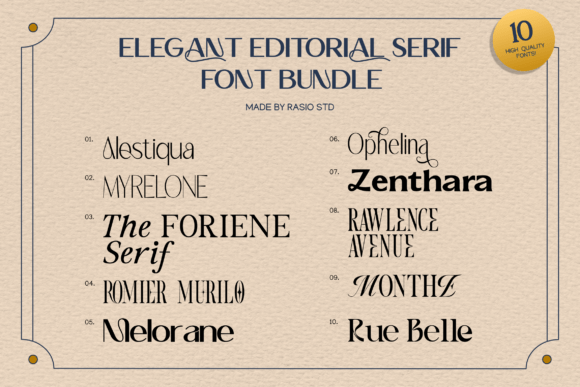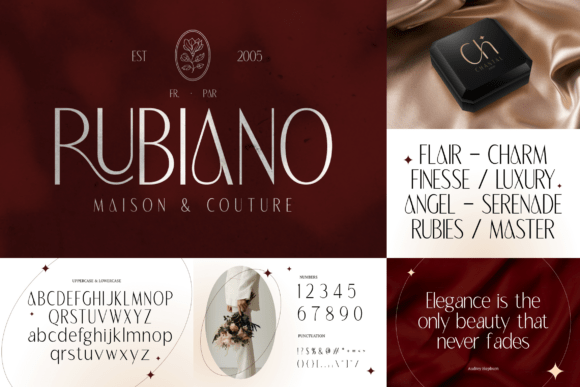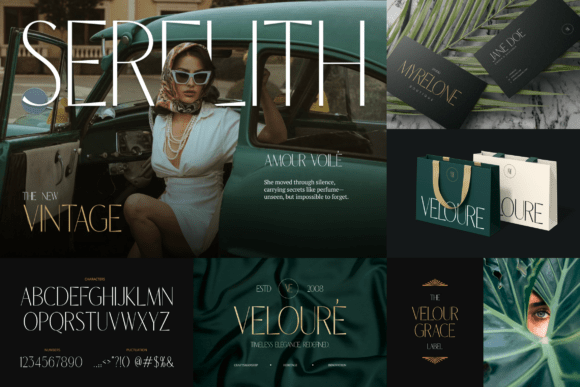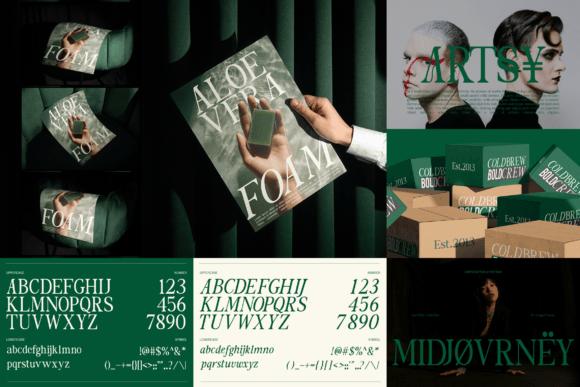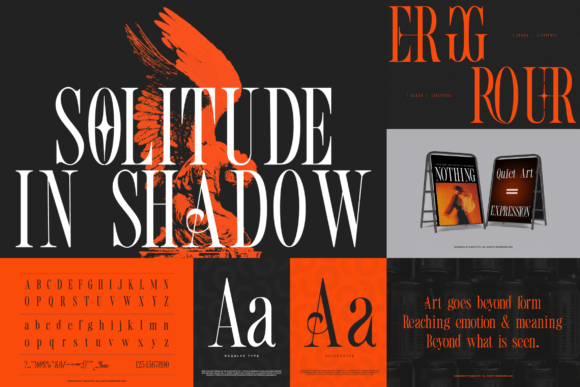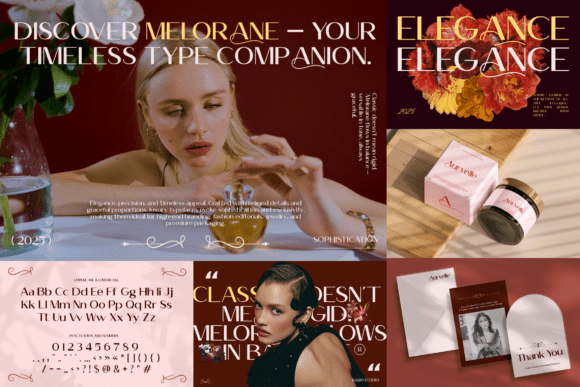
Elegant Editorial Font: Elevate Your Design with Timeless Sophistication
In the world of typography, an elegant editorial font can make all the difference in creating a lasting impression. The Elegant Editorial Serif Font Bundle is a thoughtfully curated collection of typefaces designed to bring refined, modern, and timeless design to your projects. This bundle seamlessly combines classic serif sophistication with contemporary editorial aesthetics, delivering expressive yet balanced letterforms with a polished character.
What Makes the Elegant Editorial Serif Font Bundle Stand Out?
The Elegant Editorial Serif Font Bundle is crafted to perform beautifully in display use, featuring elegant proportions, subtle contrast, and distinctive details. Each typeface in the bundle is designed to provide a confident and graceful presence without feeling overly decorative. This makes them ideal for a wide range of applications, including editorial layouts, fashion branding, luxury visuals, and premium creative projects.
Key Features of the Elegant Editorial Serif Font Bundle
- Elegant Proportions: The fonts in this bundle are designed with elegant proportions that evoke a sense of sophistication and refinement.
- Subtle Contrast: The subtle contrast in the letterforms adds depth and nuance to the typography, making it perfect for display use.
- Distinctive Details: Each typeface features distinctive details that set it apart from more generic fonts, giving your designs a unique edge.
- Balanced Letterforms: The letterforms are carefully crafted to be expressive yet balanced, ensuring that your text is easy to read and visually appealing.
The Elegant Editorial Serif Font Bundle is incredibly versatile, making it suitable for a wide range of design applications. Whether you’re creating a high-end brand identity, designing magazine-style compositions, or crafting elegant visual storytelling, this font bundle provides a versatile and elevated typographic foundation.
Editorial Layouts
For editorial layouts, the Elegant Editorial Serif Font Bundle offers a level of sophistication and refinement that is hard to match. The fonts are designed to work beautifully in display use, making them perfect for headlines, titles, and other prominent text elements.
Fashion Branding
In the world of fashion branding, typography plays a crucial role in conveying luxury and sophistication. The Elegant Editorial Serif Font Bundle is designed to deliver a confident and graceful presence, making it perfect for fashion brands looking to elevate their visual identity.
Luxury Visuals
For luxury visuals, the Elegant Editorial Serif Font Bundle offers a level of elegance and refinement that is unmatched. The fonts are designed to add a touch of sophistication to any design, making them perfect for high-end brands and premium creative projects.
Why Choose the Elegant Editorial Serif Font Bundle?
There are many reasons why designers and crafters should choose the Elegant Editorial Serif Font Bundle for their projects. Here are just a few:
- Timeless Design: The fonts in this bundle are designed to be timeless, ensuring that your designs will remain elegant and sophisticated for years to come.
- Versatility: The Elegant Editorial Serif Font Bundle is incredibly versatile, making it suitable for a wide range of design applications.
- Elegance: The fonts in this bundle are designed to deliver a level of elegance and refinement that is hard to match.
| Font Name | Elegant Editorial Font |
| Author | product.rasiostudio |
In conclusion, the Elegant Editorial Serif Font Bundle is a must-have for designers and crafters looking to elevate their designs with timeless sophistication. With its elegant proportions, subtle contrast, and distinctive details, this bundle delivers a level of refinement and luxury that is unmatched. Whether you’re creating editorial layouts, fashion branding, luxury visuals, or premium creative projects, this font bundle provides a versatile and elevated typographic foundation that is sure to impress.